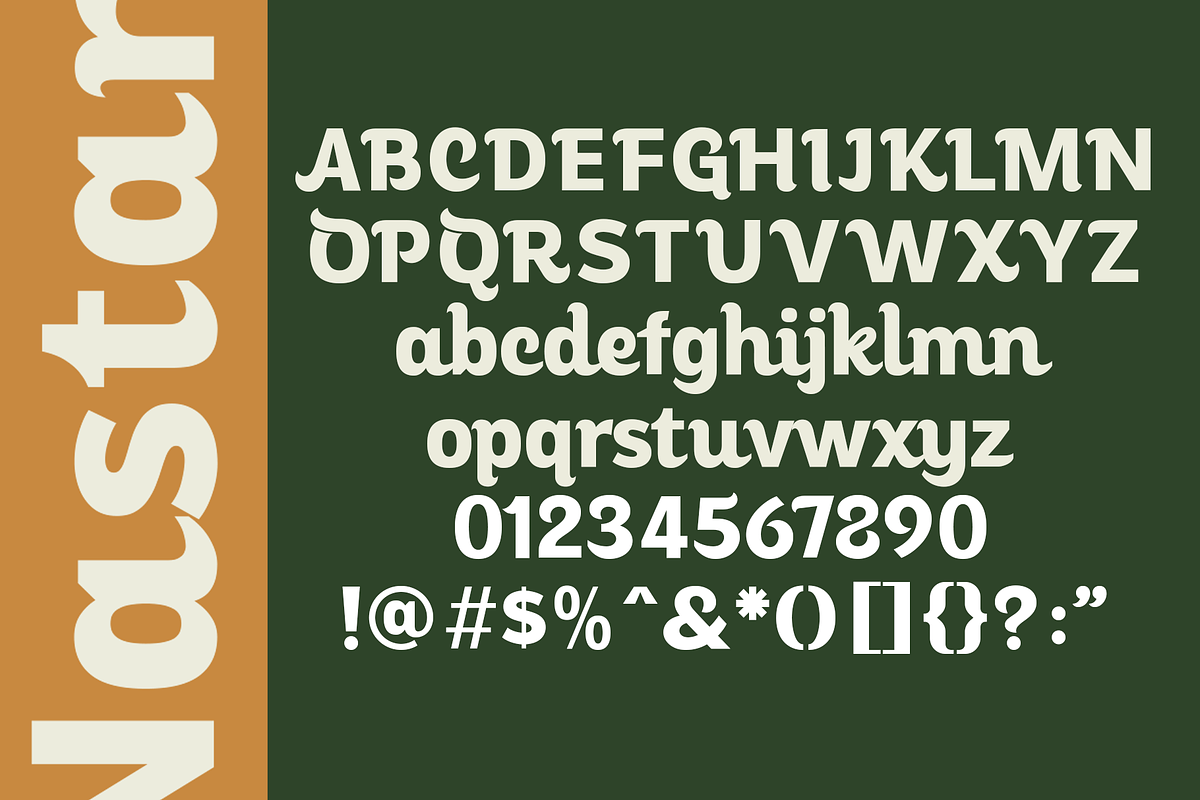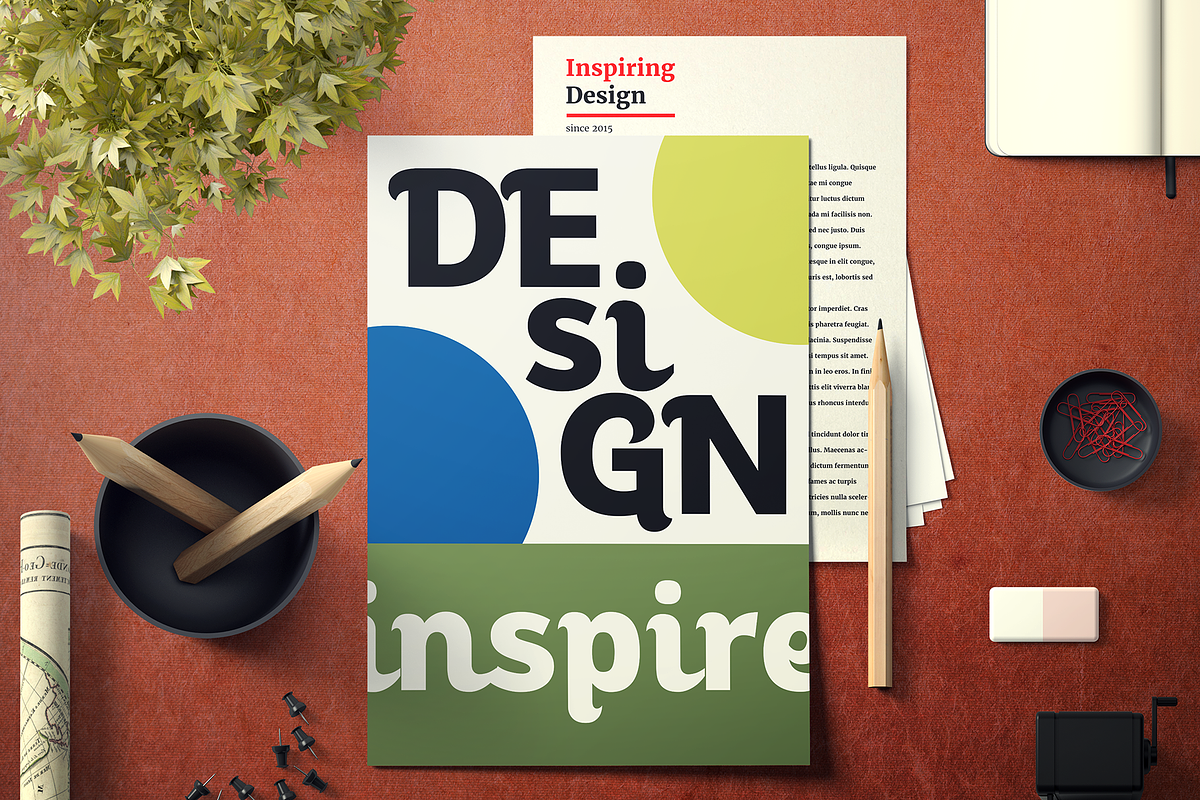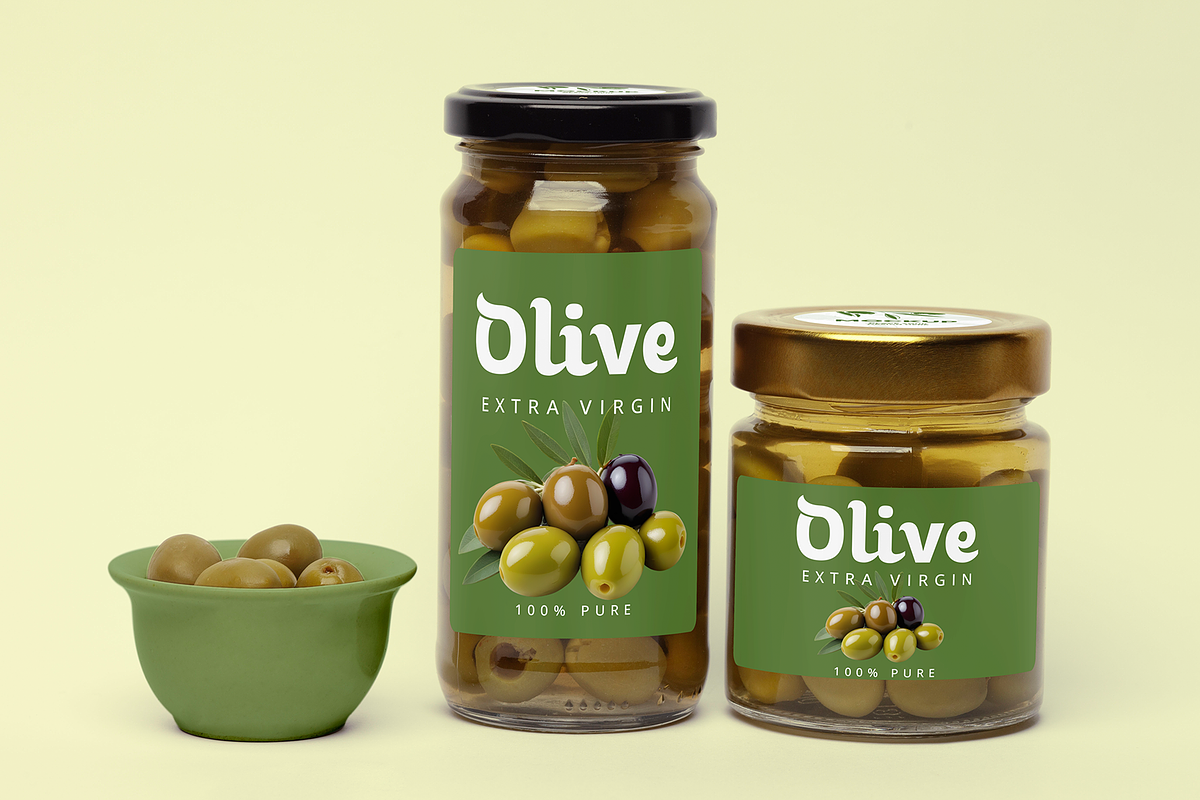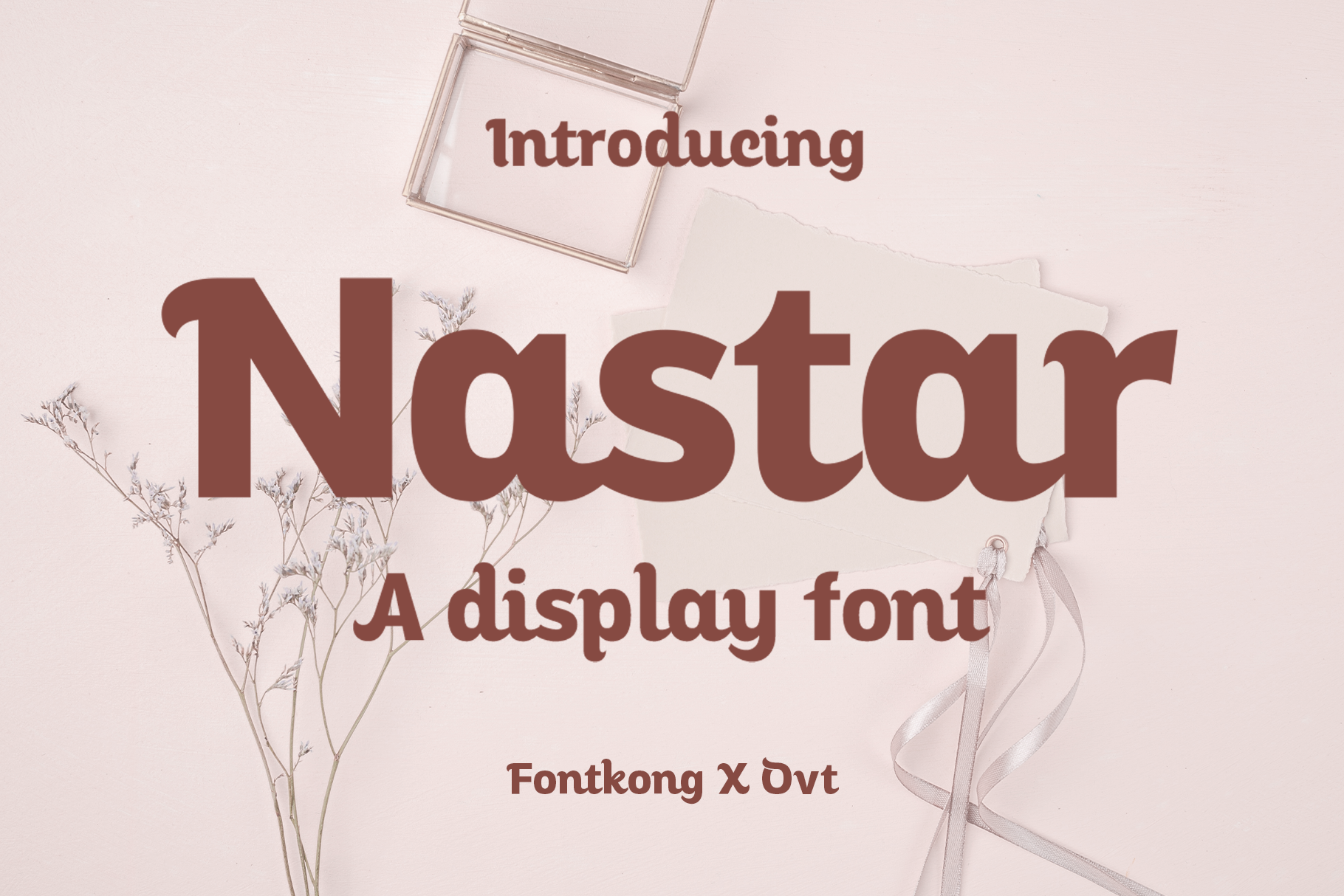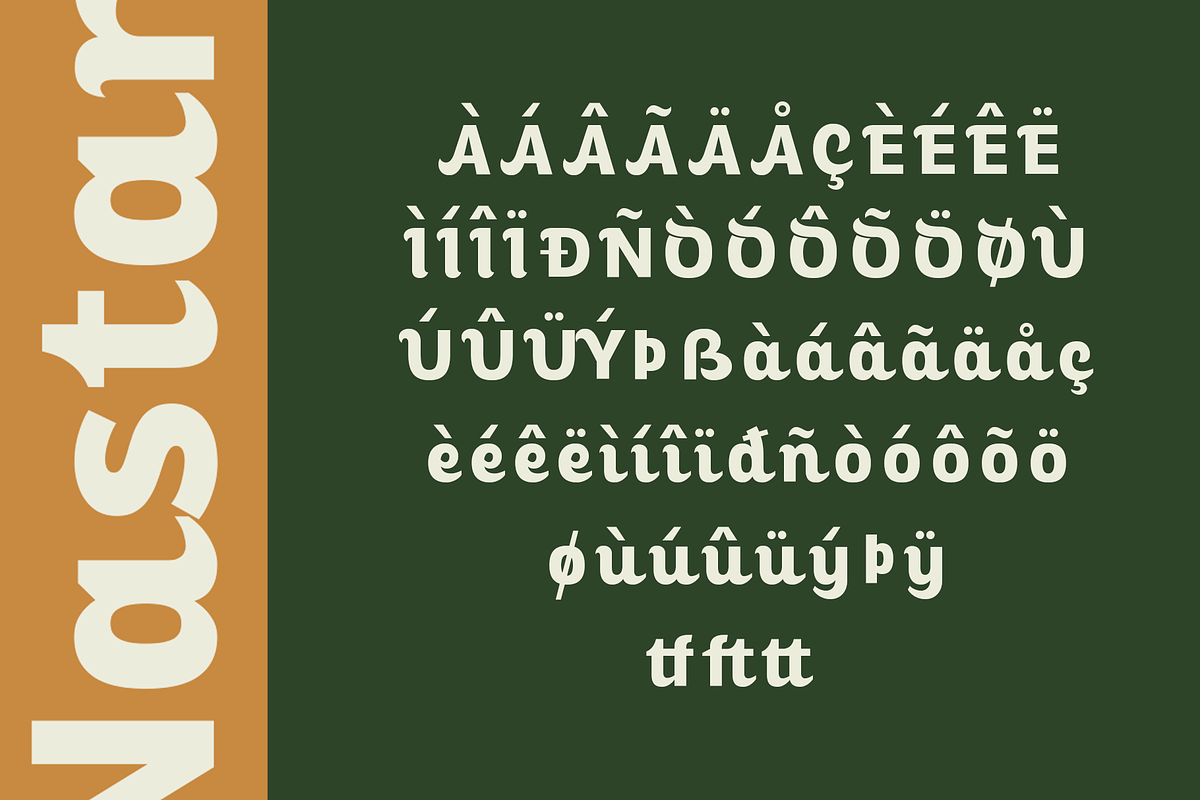
Nastar – A Playful Display Font
Nastar is a lively and bold display font designed to make your projects pop with personality. With its playful and eye-catching letterforms, this font is perfect for branding, posters, packaging, merchandise, and social media graphics. Whether you're creating vibrant marketing campaigns or quirky event invitations, Nastar adds a fun and energetic touch to your designs.
The font’s chunky and expressive style ensures maximum visual impact, making it ideal for both print and digital projects. Nastar offers a perfect blend of creativity and readability, making it a favorite for bold typography needs. Its playful design also suits children's themes, product packaging, and promotional events.
Let Nastar elevate your work with a unique flair that demands attention and captures the essence of joyful design.